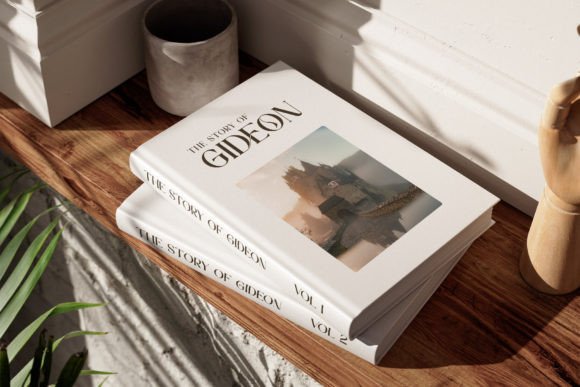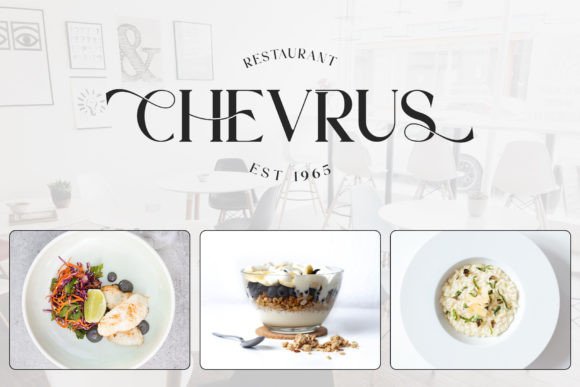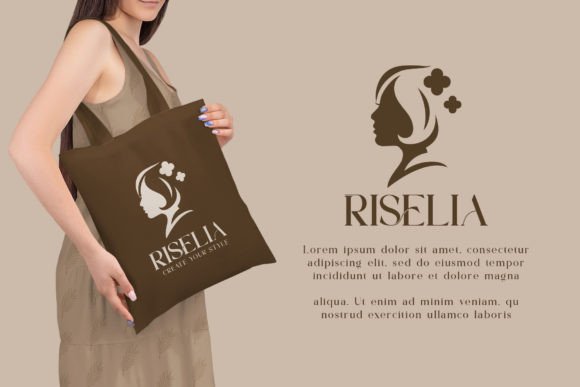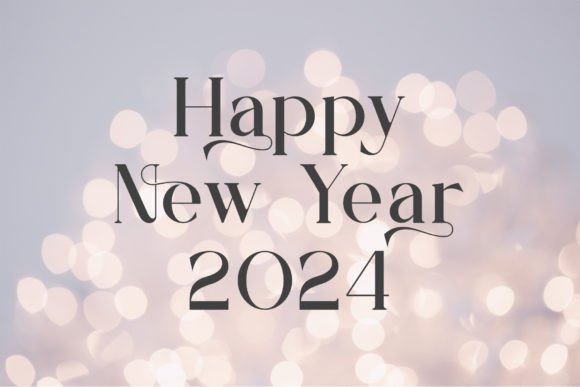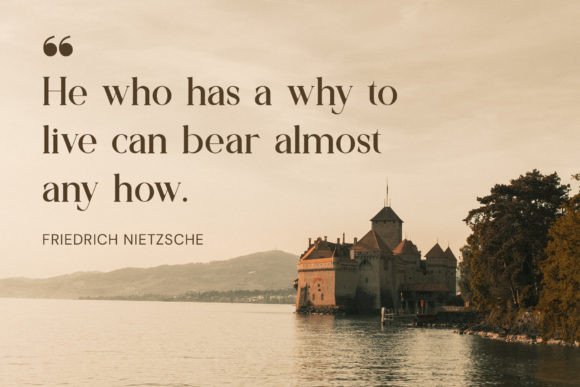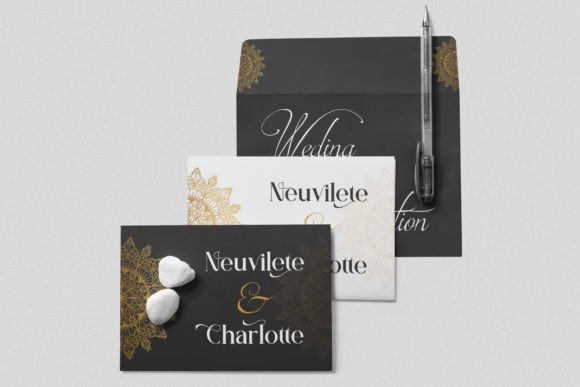
Introduction to Newlevi Font Font
Fonts play a crucial role in design, and the Newlevi Font font is a typeface that brings both character and versatility to any project. Whether you’re working on a branding project, a website, or a print design, the Newlevi Font font offers a unique style that can elevate your work.
Newlevi Serif is a balanced, smooth, elegant, and stylish serif font.
He has a beautiful character It fits perfectly with invitation card designs, company logos, movie titles, movie names, business cards, book titles, brand names, and various other designs.
The Newlevi Font font is more than just a typeface – it’s a design tool that helps you communicate your message with style and clarity. Its unique character set and versatile design make it suitable for a wide range of applications, from elegant invitations to bold headlines.
With its carefully crafted letterforms and balanced proportions, the Newlevi Font font ensures readability and visual appeal across all mediums.
The Newlevi Font font stands out with its unique design, exceptional readability, and versatility across various design applications.